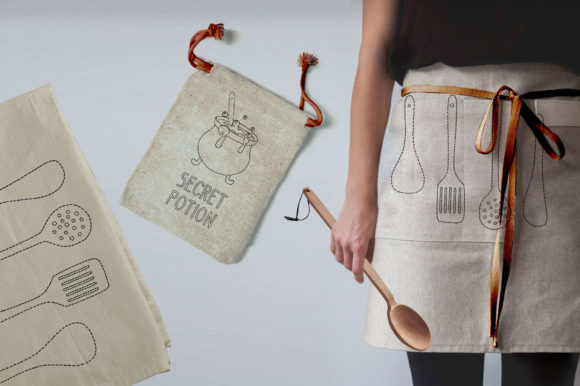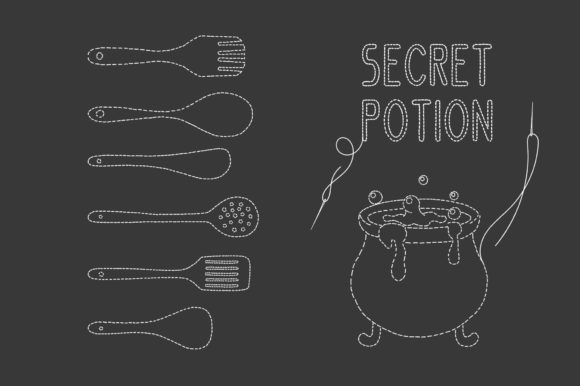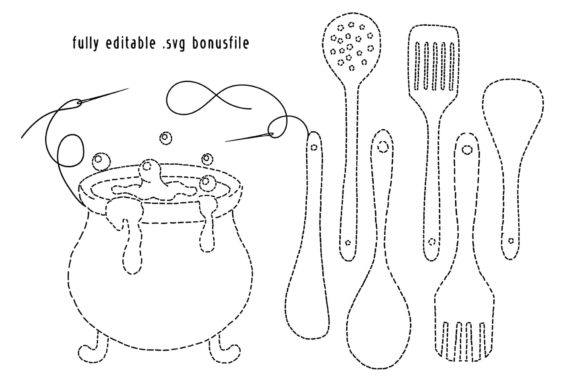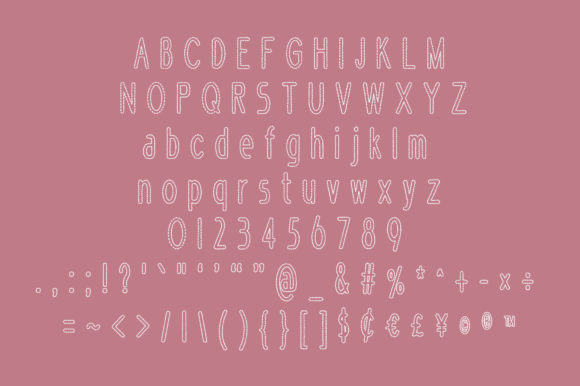
Introduction to Handstitch Outline Font
Handstitch Outline is a cool and uniquely designed decorative font.
Handstitch Outline Font offers exceptional quality and versatility, making it a valuable addition to your design toolkit. Whether you’re creating for personal projects or commercial use, Handstitch Outline Font delivers professional results.